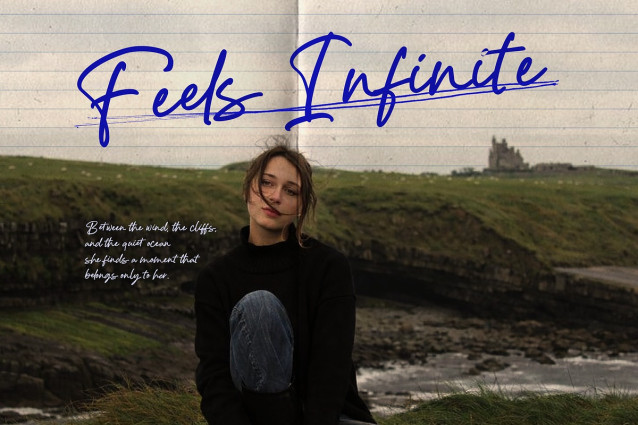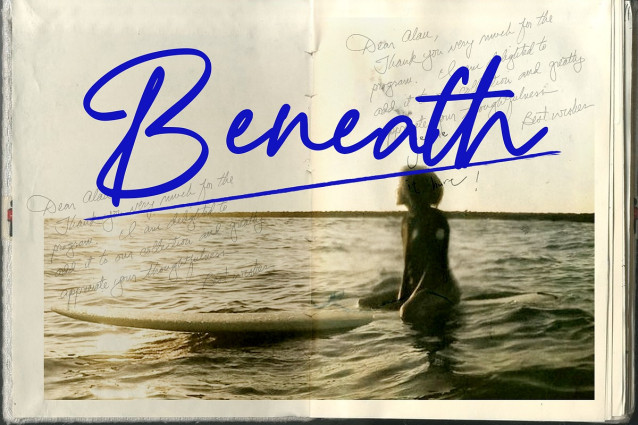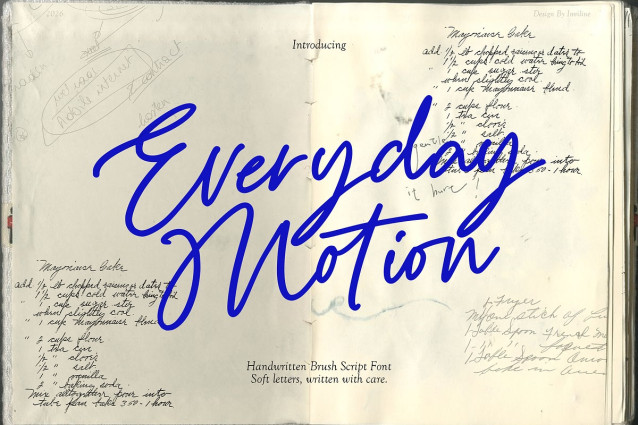
Everyday Motion Handwritten Font
Everyday Motion Handwritten Font is a handwritten brush script that captures the rhythm of daily life spontaneous, fluid, and naturally expressive. Each stroke feels alive, slightly imperfect in the most intentional way, creating movement across every word. The letterforms flow with a confident energy, balancing bold gestures with soft curves, as if written in one continuous breath.
Designed for branding, editorial layouts, postcards, social media quotes, packaging, and lifestyle visuals, Everyday Motion brings warmth and personality into your typography. It feels modern yet intimate, expressive yet readable perfect for projects that want to feel human, dynamic, and effortlessly real.